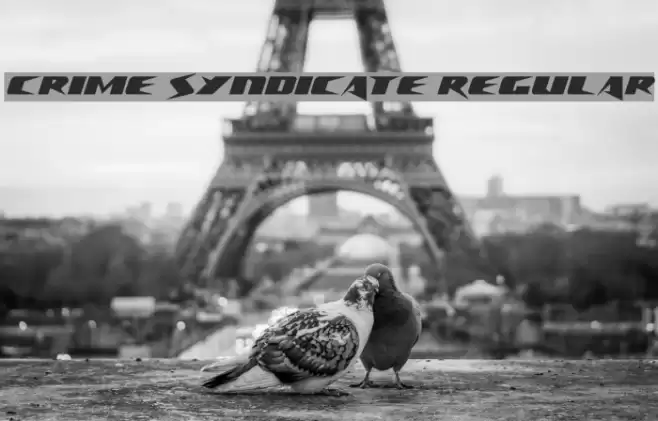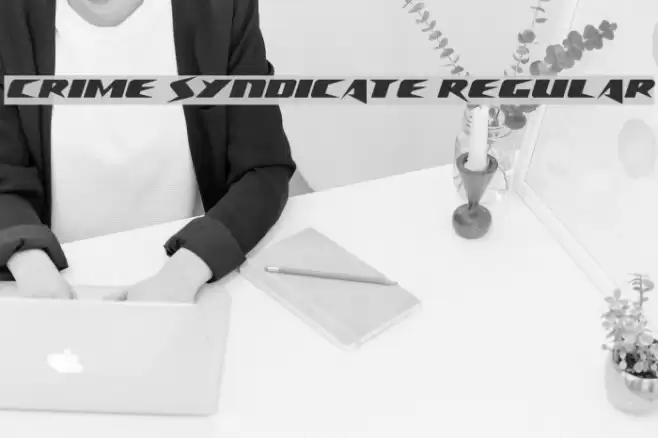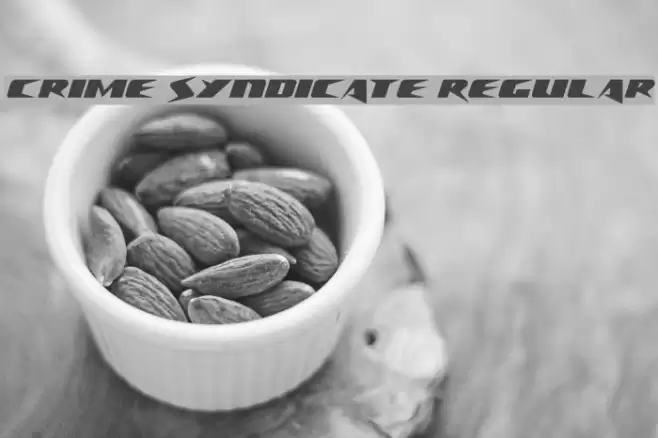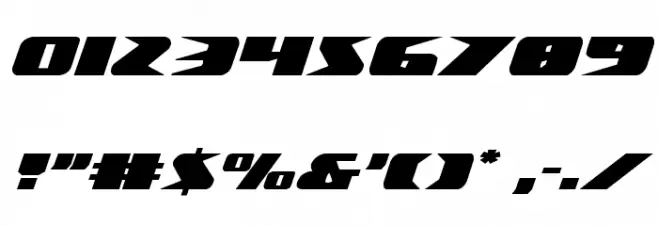
Crime Syndicate Regular Font
Crime Syndicate Regular Description
This font features a bold and aggressive style with sharp, angular edges and a futuristic appearance. The characters are heavily stylized, with a dynamic slant that gives a sense of motion and energy. The uppercase and lowercase letters maintain a consistent design, emphasizing strong geometric shapes and a sense of uniformity. Numbers and special characters are equally bold, maintaining the same angular and edgy aesthetic. This font is designed to stand out and make a statement, perfect for projects that require a strong visual impact.
A bold, angular font with a futuristic and aggressive style from Uncategorized fonts.
- Proposed Projects: Ideal for video game titles, movie posters, branding for tech companies, or any project needing a bold, futuristic look.
- Overall Style: Futuristic, Aggressive